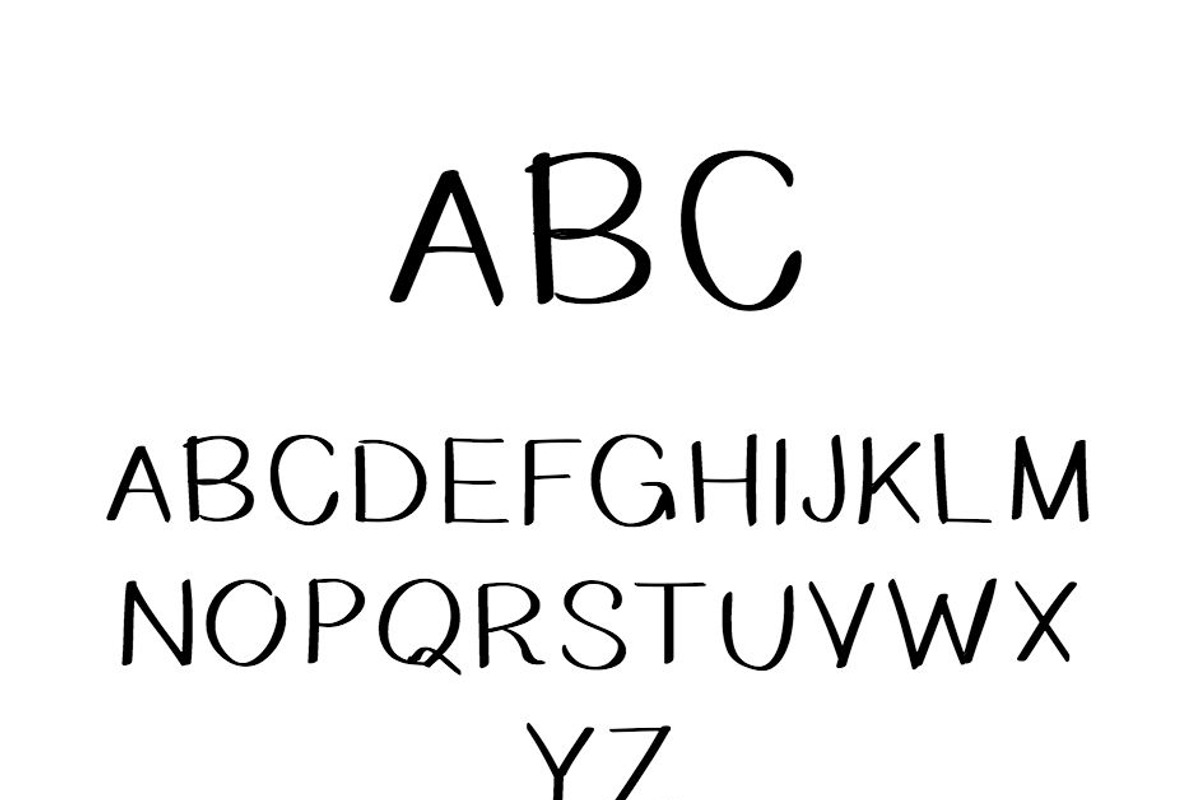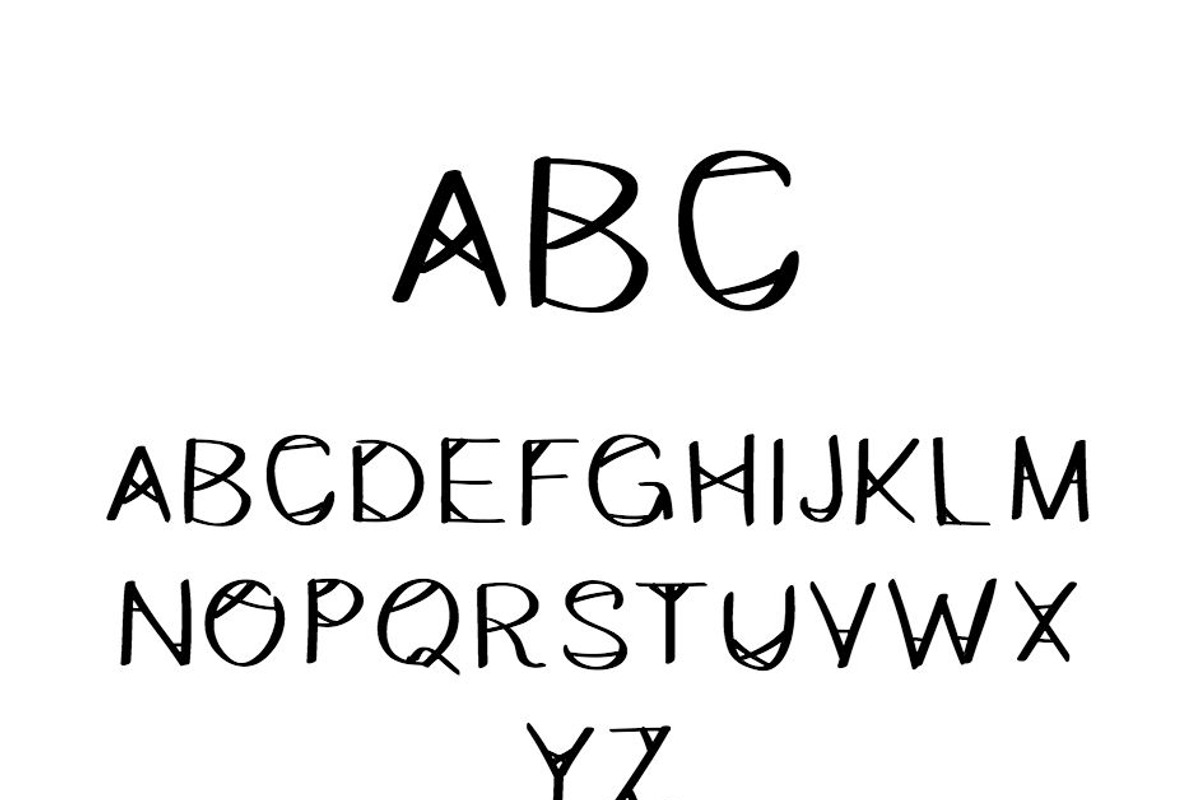
Hey Bas + Hey Bas Uncrossed 2 fonts
Hey Bas + Hey Bas Uncrossed 2 fonts by IlloMax is a font selected for branding, posters, packaging, typography.
Why Hey Bas + Hey Bas Uncrossed 2 fonts is worth a look
Hey Bas + Hey Bas Uncrossed 2 fonts by IlloMax fits naturally into Branding, posters, packaging, typography.